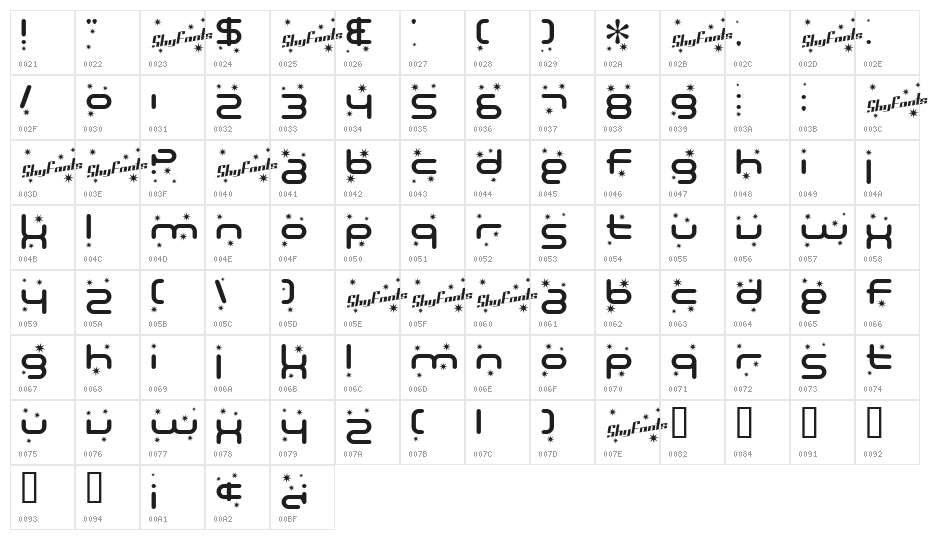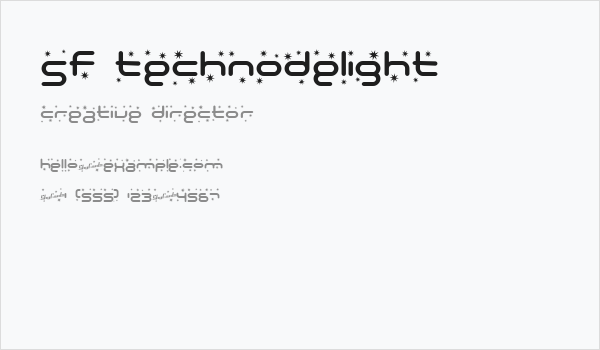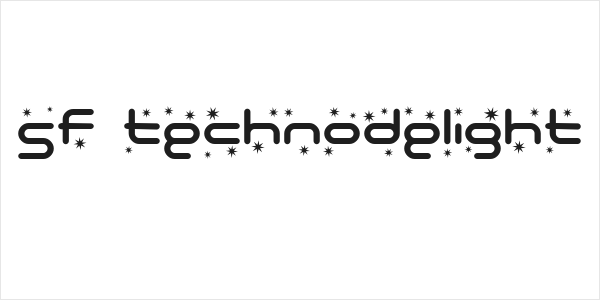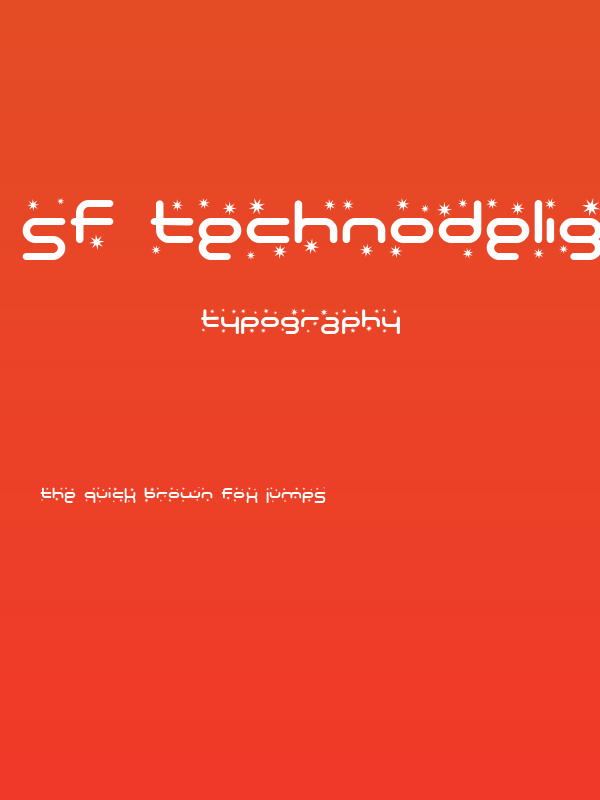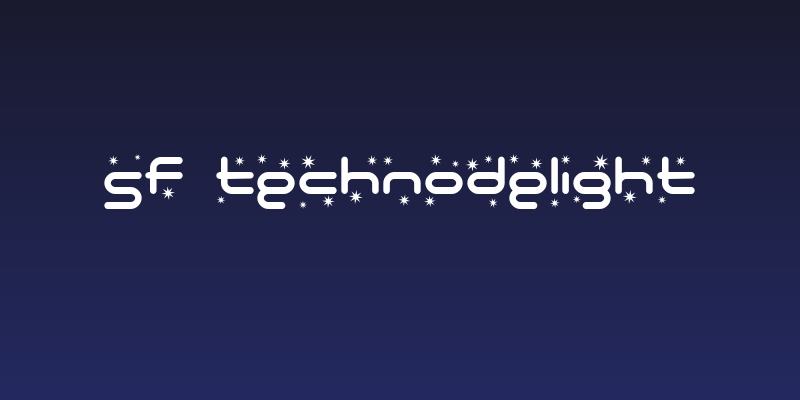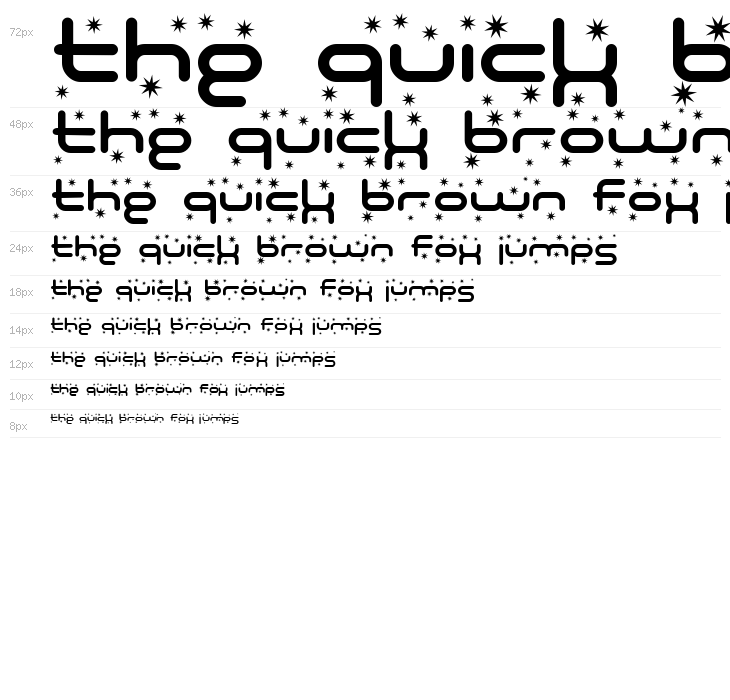
SF Technodelight Font
SF Technodelight Description
This font presents a futuristic and playful design, characterized by rounded, geometric letterforms. The letters are adorned with star-like asterisks, adding a whimsical and decorative touch. The overall appearance is sleek and modern, with a consistent stroke width that maintains a uniform look across all characters. The font's unique style is suitable for creative and tech-oriented projects, offering a distinct visual appeal that stands out. Its clean lines and rounded edges make it versatile for various design applications, while the decorative elements provide an extra layer of interest.
Overall StyleFuturistic, Playful
Proposed ProjectsIdeal for tech branding, sci-fi themed designs, video game graphics, and creative posters.